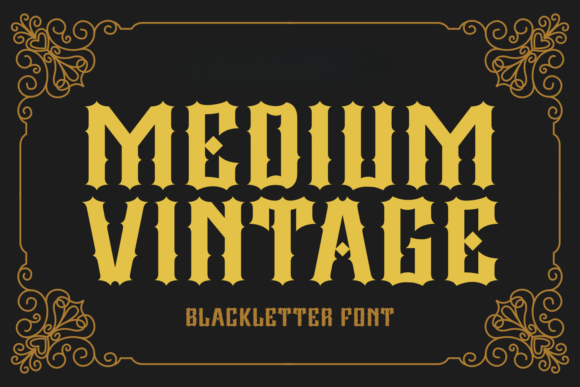
Introducing Medium Vintage Font: A Timeless Blackletter Typeface
Are you looking for a font that can add a touch of nostalgia and vintage charm to your designs? Look no further than Medium Vintage, a bold blackletter font that is sure to make a statement. With its sharp points, tall structure, and subtle ornamental curves, Medium Vintage is the perfect choice for retro branding, headlines, and packaging.
The Characteristics of Medium Vintage Font
Medium Vintage is a bold blackletter font that is inspired by the classic signage, old western posters, and product labels of the past. Its sharp points and tall structure give it a strong and dramatic appearance, while its subtle ornamental curves add a touch of elegance and sophistication. The font features a rich, nostalgic flair that is sure to evoke the spirit of a bygone era.
What Makes Medium Vintage Font So Versatile?
One of the things that sets Medium Vintage apart from other fonts is its versatility. It can be used for a wide range of design projects, from retro branding and headlines to packaging and advertising. The font’s bold and dramatic appearance makes it perfect for creating eye-catching headlines and titles, while its elegant and sophisticated curves make it suitable for use in more refined and luxurious designs.
The Benefits of Using Medium Vintage Font
There are many benefits to using Medium Vintage font in your designs. Here are just a few:
- Unique and distinctive appearance: Medium Vintage has a bold and dramatic appearance that is sure to make your designs stand out from the crowd.
- Timeless charm: The font’s vintage inspiration gives it a timeless charm that will never go out of style.
- Versatility: Medium Vintage can be used for a wide range of design projects, from retro branding and headlines to packaging and advertising.
- Ease of use: The font is easy to read and can be used in a variety of contexts, from digital designs to print materials.
How to Use Medium Vintage Font Effectively
To get the most out of Medium Vintage font, here are a few tips for using it effectively:
- Use it for headlines and titles: Medium Vintage is perfect for creating eye-catching headlines and titles that will grab the attention of your audience.
- Pair it with a sans-serif font: For body text, pair Medium Vintage with a clean and simple sans-serif font to create a striking contrast.
- Experiment with different colors: Medium Vintage looks great in a variety of colors, from bold and bright to muted and pastel.
- Use it sparingly: Because of its bold and dramatic appearance, it’s best to use Medium Vintage sparingly to avoid overwhelming your design.
Examples of Medium Vintage Font in Use
Here are a few examples of Medium Vintage font in use:
Medium Vintage font is a bold and dramatic blackletter font that is perfect for adding a touch of nostalgia and vintage charm to your designs. With its sharp points, tall structure, and subtle ornamental curves, it’s sure to make a statement. Whether you’re creating retro branding, headlines, or packaging, Medium Vintage is a versatile and effective choice.
FAQs About Medium Vintage Font
Q: What is Medium Vintage font?
A: Medium Vintage font is a bold blackletter font with a rich, nostalgic flair.
Q: What is Medium Vintage font used for?
A: Medium Vintage font is ideal for retro branding, headlines, and packaging.
Q: Is Medium Vintage font easy to read?
A: Yes, Medium Vintage font is easy to read and can be used in a variety of contexts, from digital designs to print materials.